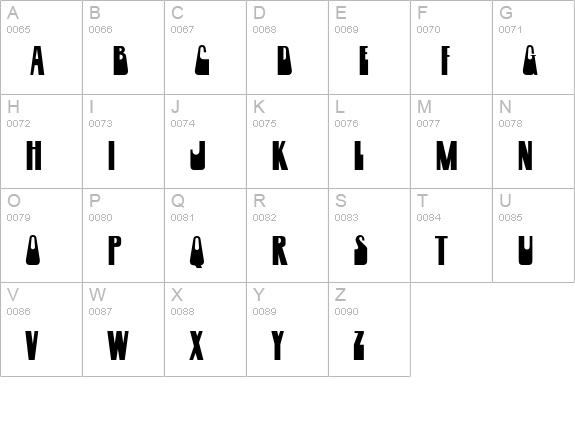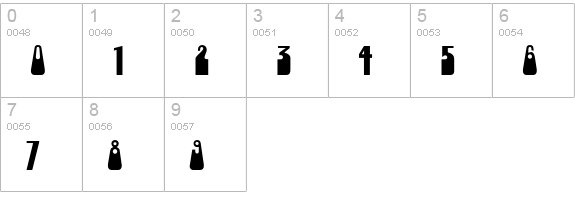
Pelikan Font Details
Pelikan font is a striking and elegant typeface that perfectly blends classic sophistication with modern design elements. Its clean lines and refined curves make it a versatile choice for a wide range of design projects. With its timeless appeal, Pelikan font adds a touch of elegance to any project, whether it's a logo, branding materials, invitations, or editorial designs. Its legibility and distinctiveness make it ideal for both print and digital applications. One of the most remarkable aspects of Pelikan font is that it is available for free! That's right, you can freely download this exceptional font at FontsMarket.com. This means that you can enjoy the beauty and functionality of Pelikan font without any cost, making it a valuable asset for designers, students, and anyone in need of a high-quality font without breaking the bank. The versatility of Pelikan font is reflected in its extensive character set, which includes uppercase and lowercase letters, numerals, punctuation marks, and a variety of special characters. This broad range of glyphs allows you to create captivating and visually appealing designs with ease. Whether you're a professional designer looking to enhance your creative arsenal or an individual embarking on a personal project, Pelikan font is the perfect choice. Its timeless beauty, combined with its easy accessibility, makes it a font that you'll turn to time and time again. Download Pelikan font for free at FontsMarket.com today and unlock a world of possibilities for your design projects. Discover the beauty and versatility of this exceptional font and elevate your designs to new heights.